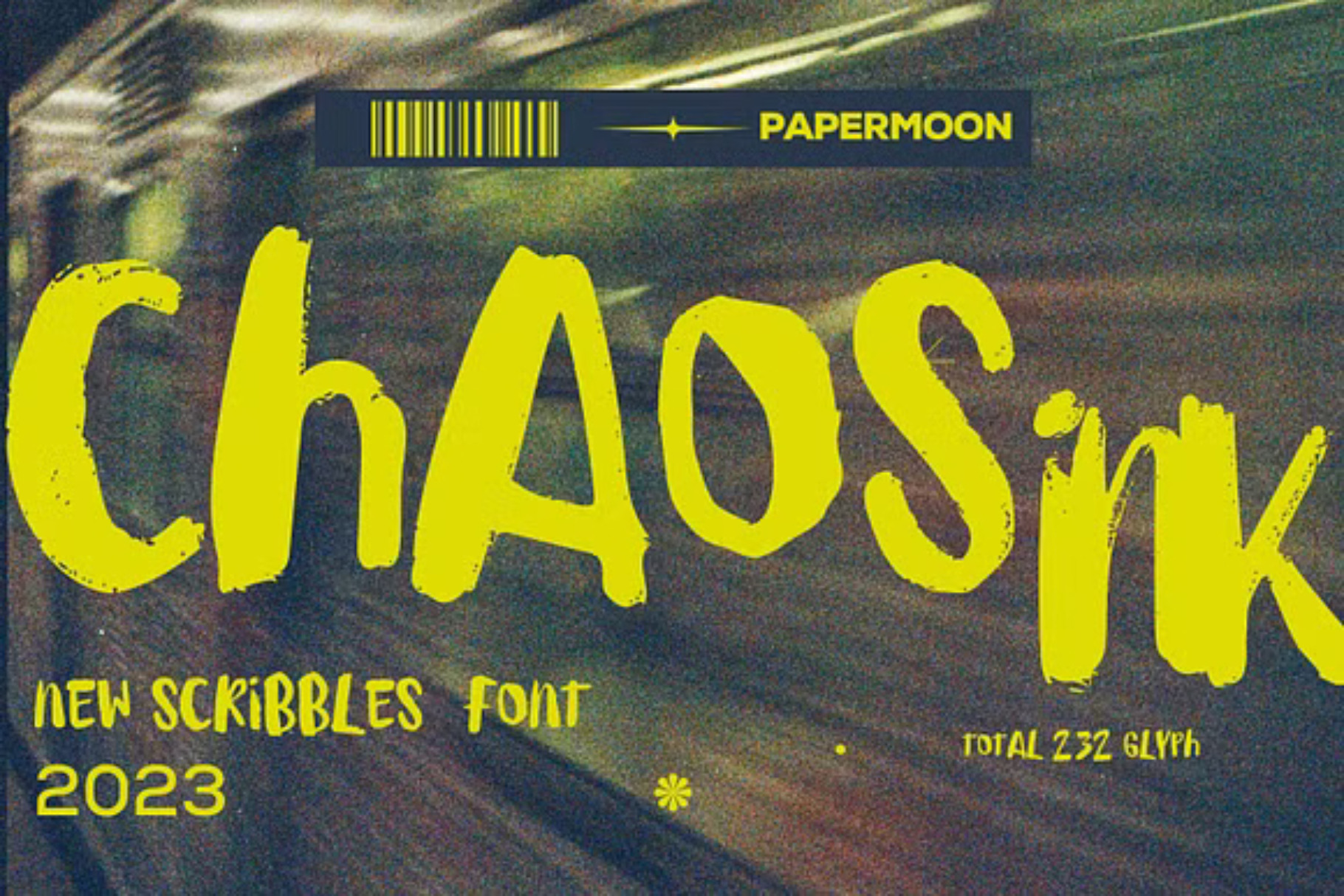
ChaosInk - Scribbles Script Font
Introducing ChaosInk: Amplify Your Visual Impact with Bold Handwritten Style!
Looking to bring intensity and character to your designs? ChaosInk is the perfect solution. This handwritten typeface features a playful, realistic scribble style that adds boldness and volume to any project. With its unique alternates and ligatures, you can customize and mix characters to create a dynamic and personalized look, giving you the creative flexibility you need.
Ideal for packaging, posters, quotes, editorial work, and branding projects, ChaosInk ensures your visuals make a powerful statement.
⦿ Key Features:
232 Glyphs: A comprehensive set of characters for versatile design possibilities Uppercase Characters: Strong, expressive options for bold typography Alternates & Ligatures: Add variety and creativity to your text combinations Numerals & Punctuation: Full character set for diverse applications Multilanguage Support: Covers over 60 Latin-based languages for global adaptability ⦿ What’s Inside the Download: